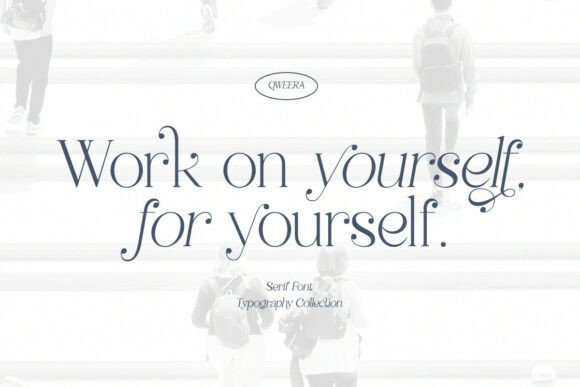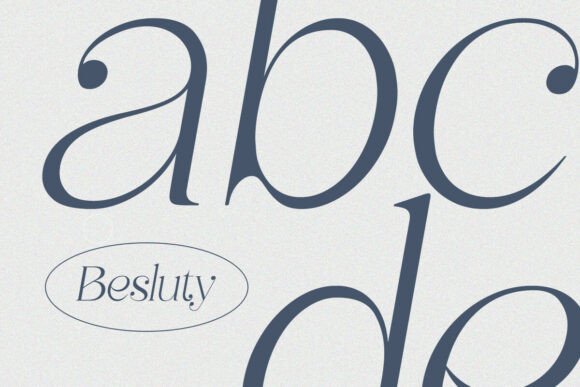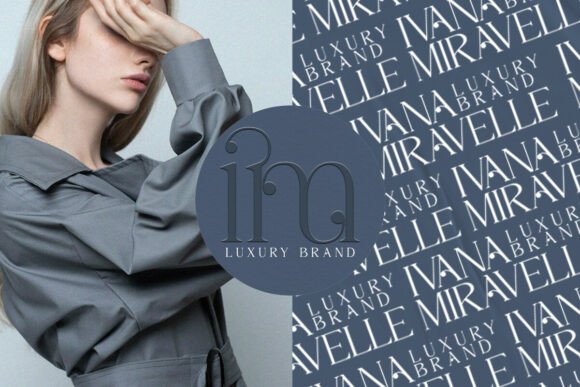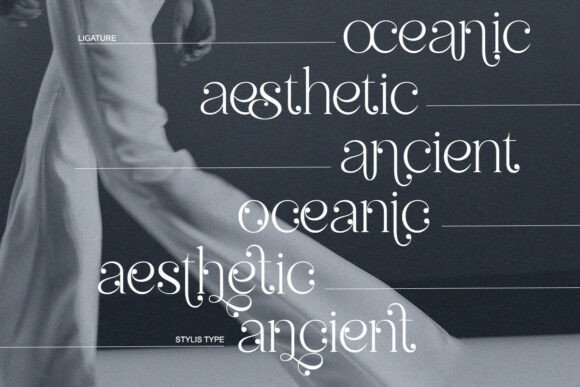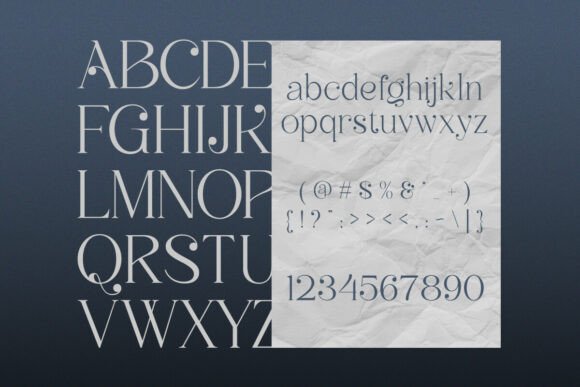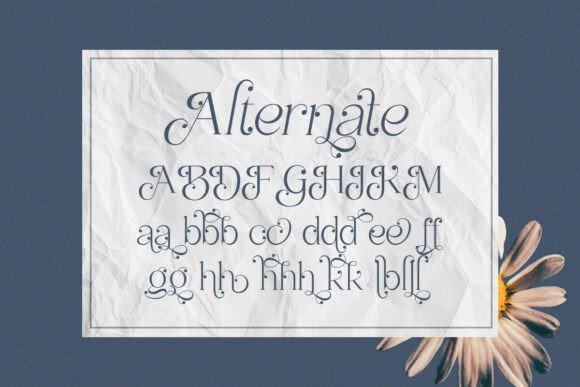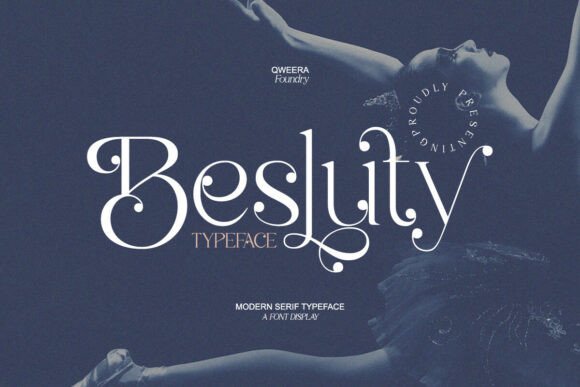
The Power of Besluty Font: Elevating Your Designs with Elegance and Flair
I still remember the struggle of working on a luxury branding project, searching for the perfect font that exuded elegance and sophistication. The client wanted a design that would make their high-end fashion brand stand out, but I was stuck with a mediocre font that just didn’t cut it. That’s when I discovered Besluty Font, a game-changing typeface that has since become a staple in my design toolkit.
What Makes Besluty Font Special?
Besluty is a high-contrast modern serif typeface that embodies the perfect blend of refinement and personality. Its delicate ball terminals, extended strokes, and dramatic flourishes make it an ideal choice for upscale branding, fashion editorials, luxury packaging, event invitations, and artistic headlines.
What I Love About Besluty Font ✨
• ✅ Elegant and sophisticated design that’s perfect for luxury brands
• ✅ High legibility, even at smaller font sizes
• ✅ Extended character set for multilingual support
• 🤔 Some users may find the font’s high contrast a bit challenging for body text
• ⚠️ Limited use of Besluty in digital interfaces may require additional font optimization
The Story Behind Besluty Font
Besluty was designed with the creative professional in mind. Its creator aimed to craft a font that would bring a balance of refinement and personality to any design project. Inspired by the elegance of luxury brands and the sophistication of fashion editorials, Besluty was born as a versatile typeface that can elevate any composition.
Q: What is Besluty Font best suited for?
A: Besluty Font is ideal for upscale branding, fashion editorials, luxury packaging, event invitations, and artistic headlines.
Q: Is Besluty Font suitable for body text?
A: While Besluty is highly legible, its high contrast design may make it less suitable for extended body text. It’s best used for headings and titles.